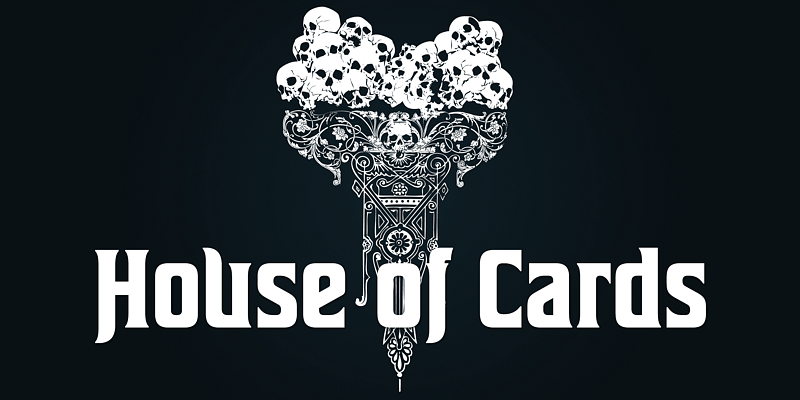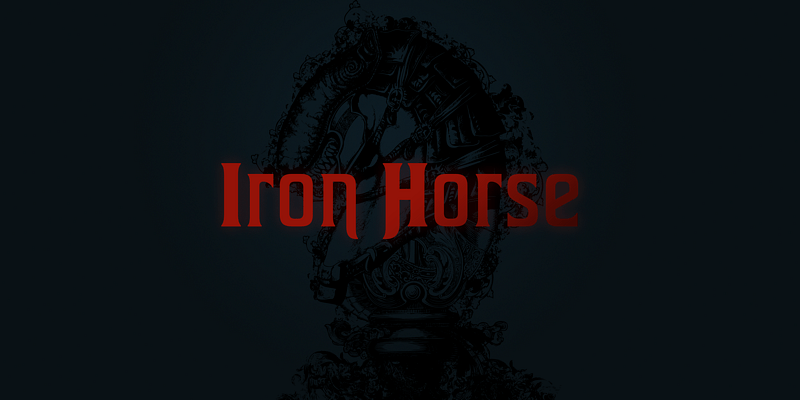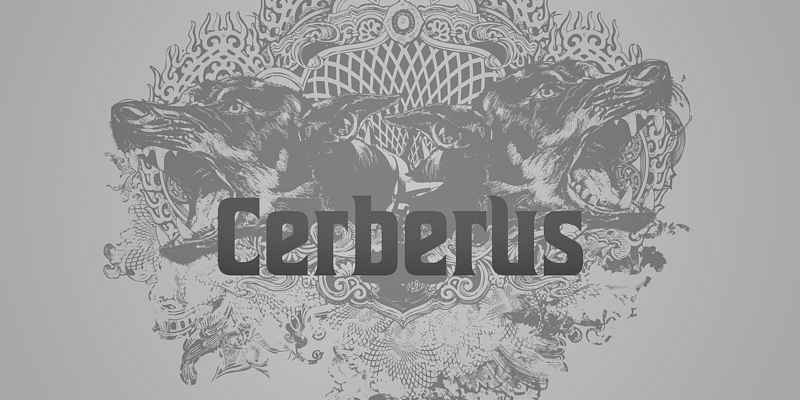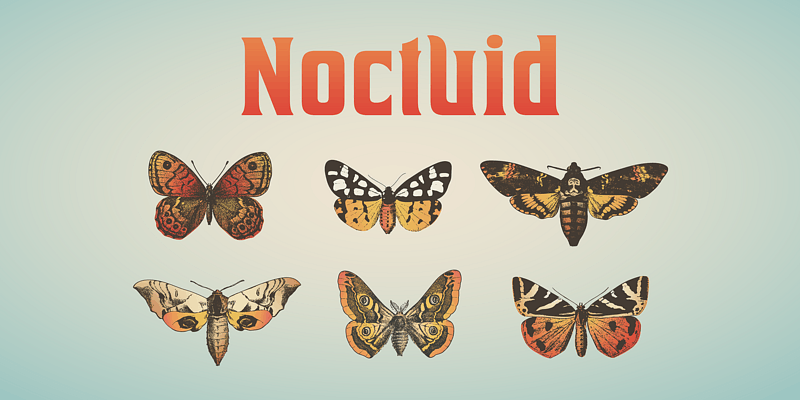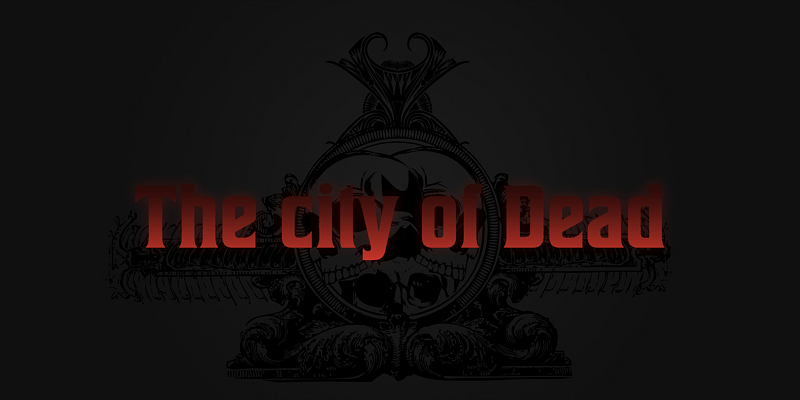
House of cards is a vintage typeface. To make natural and contemporary impressions, all glyphs had been designed carefully to be retro-looking but also modern.